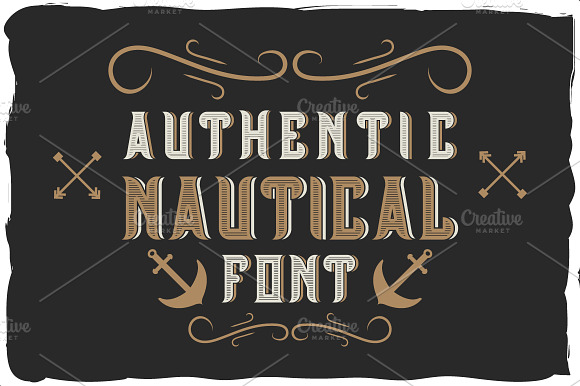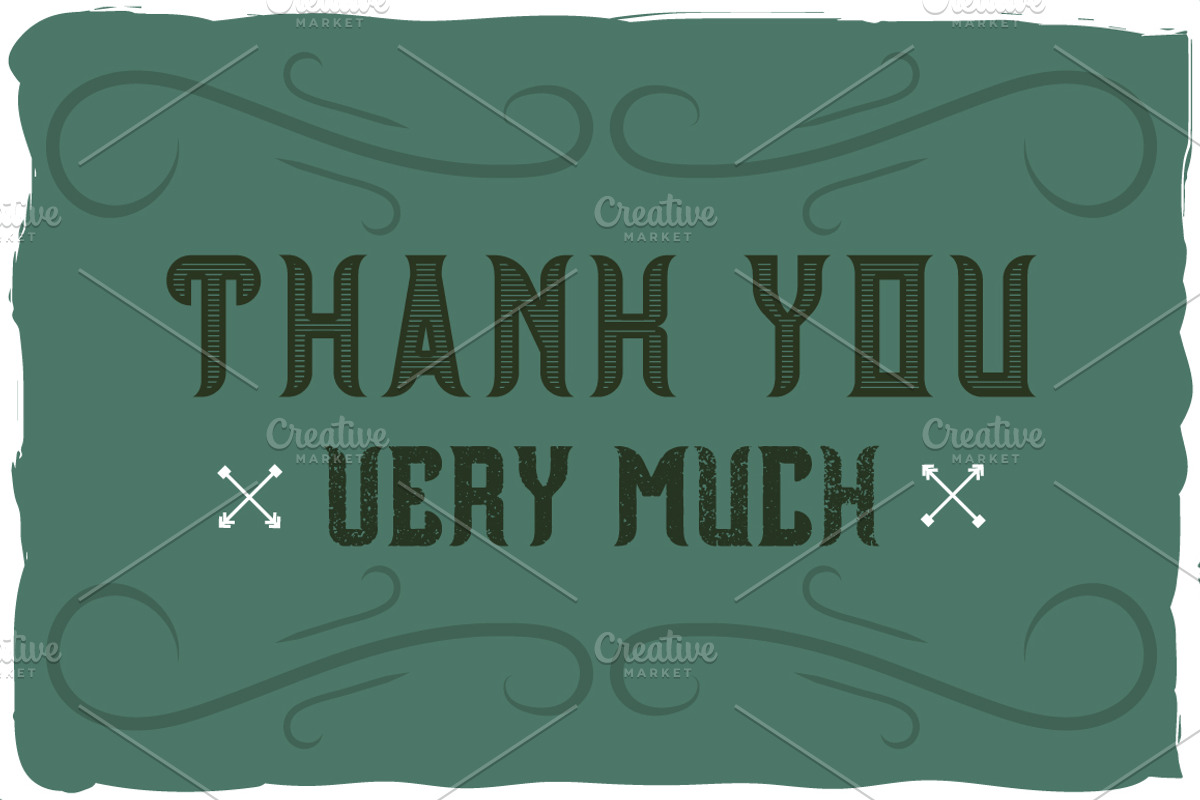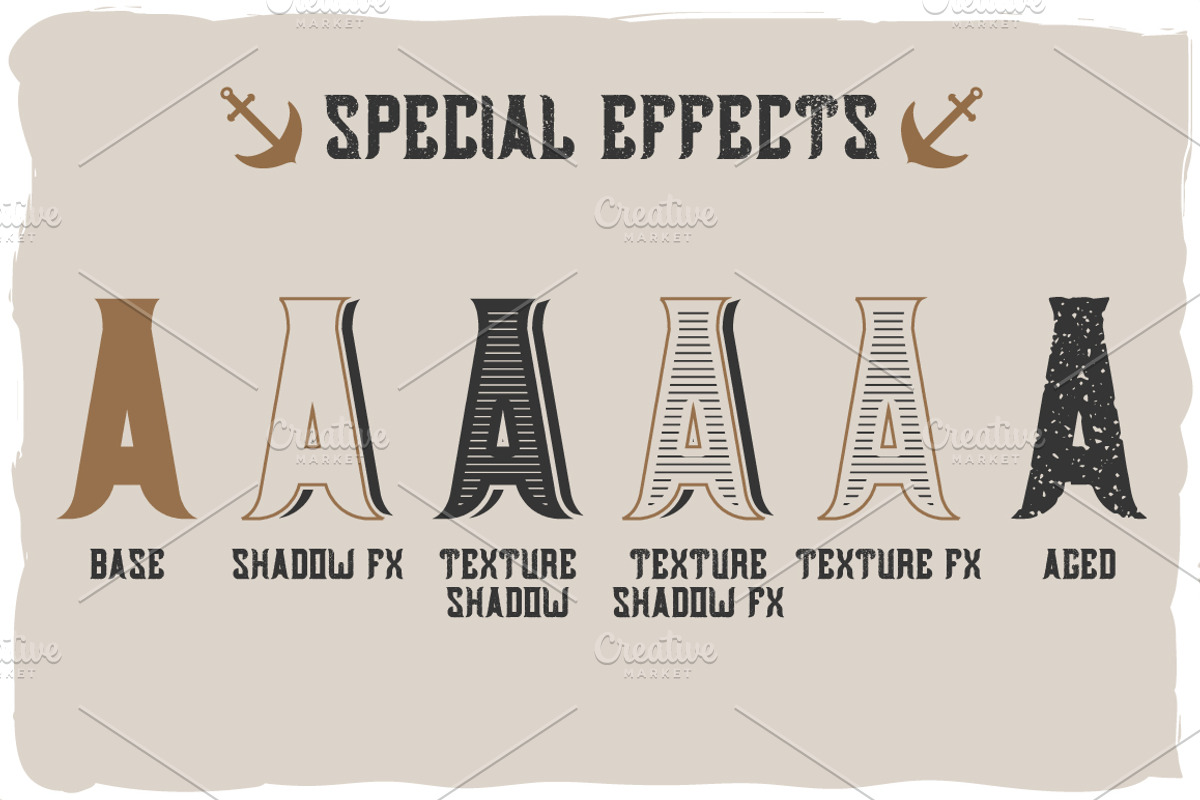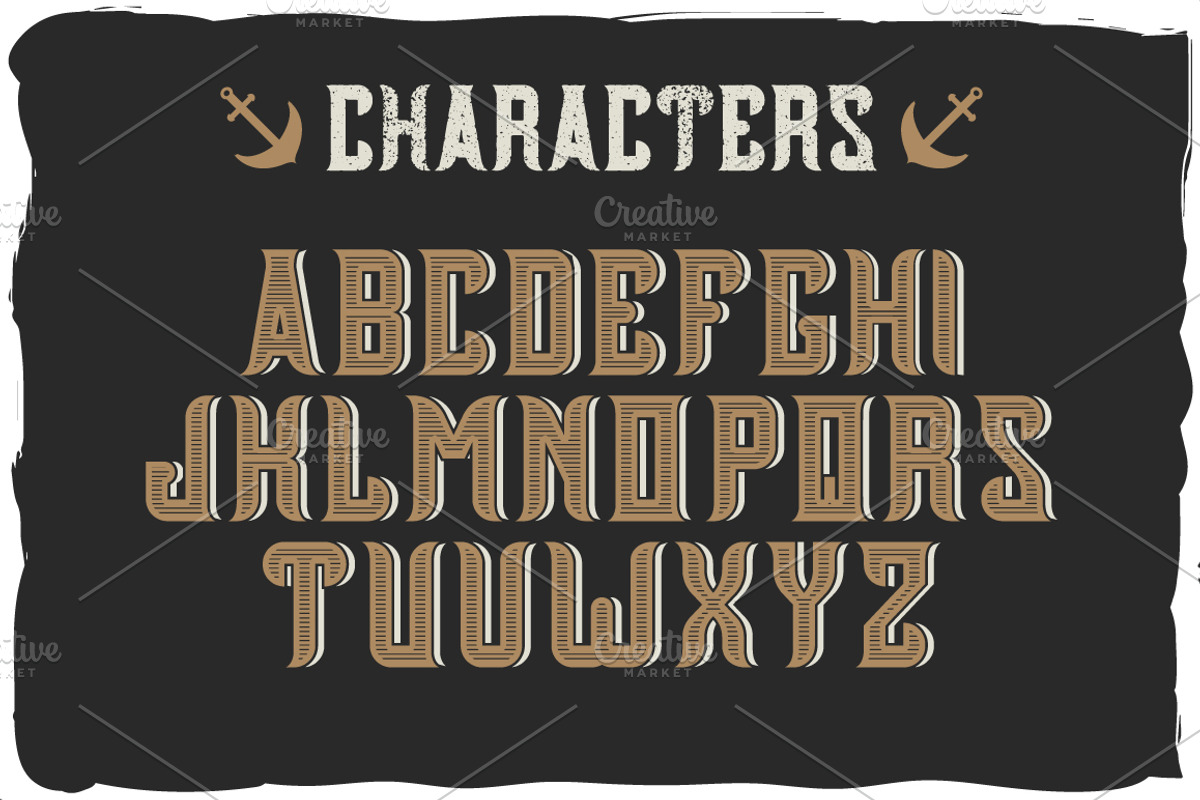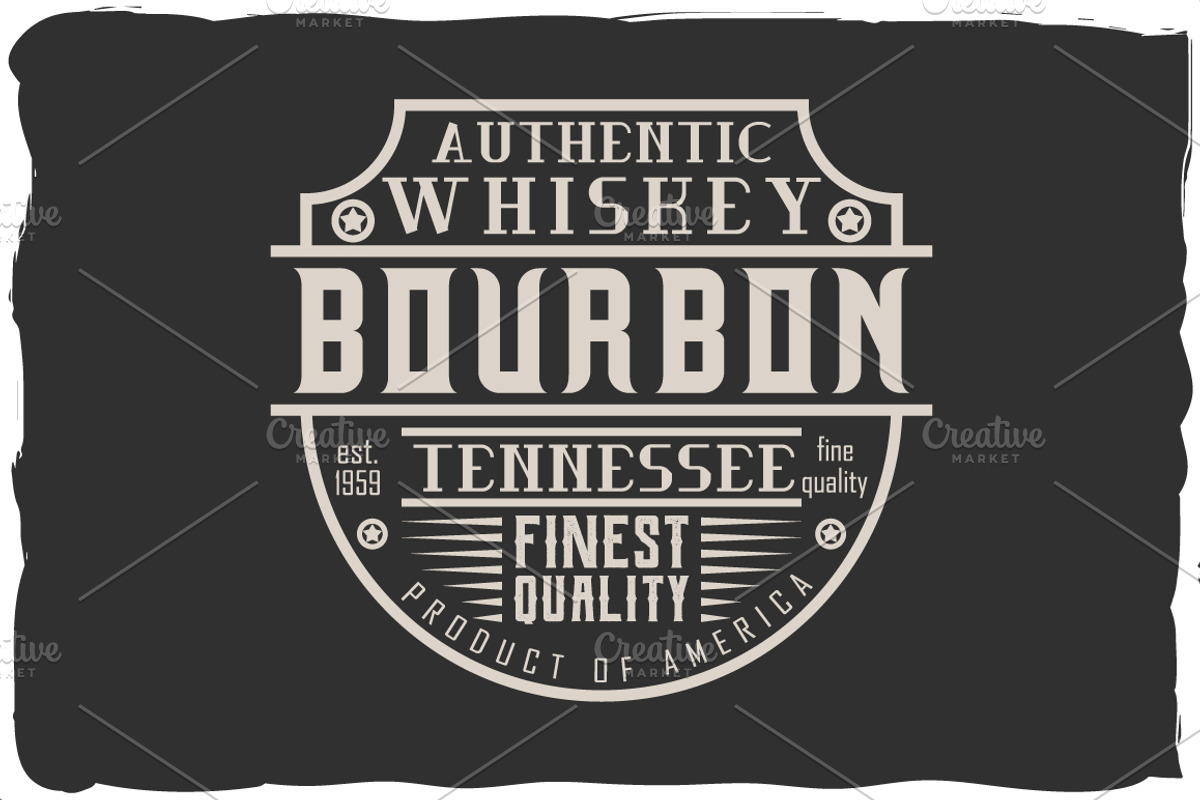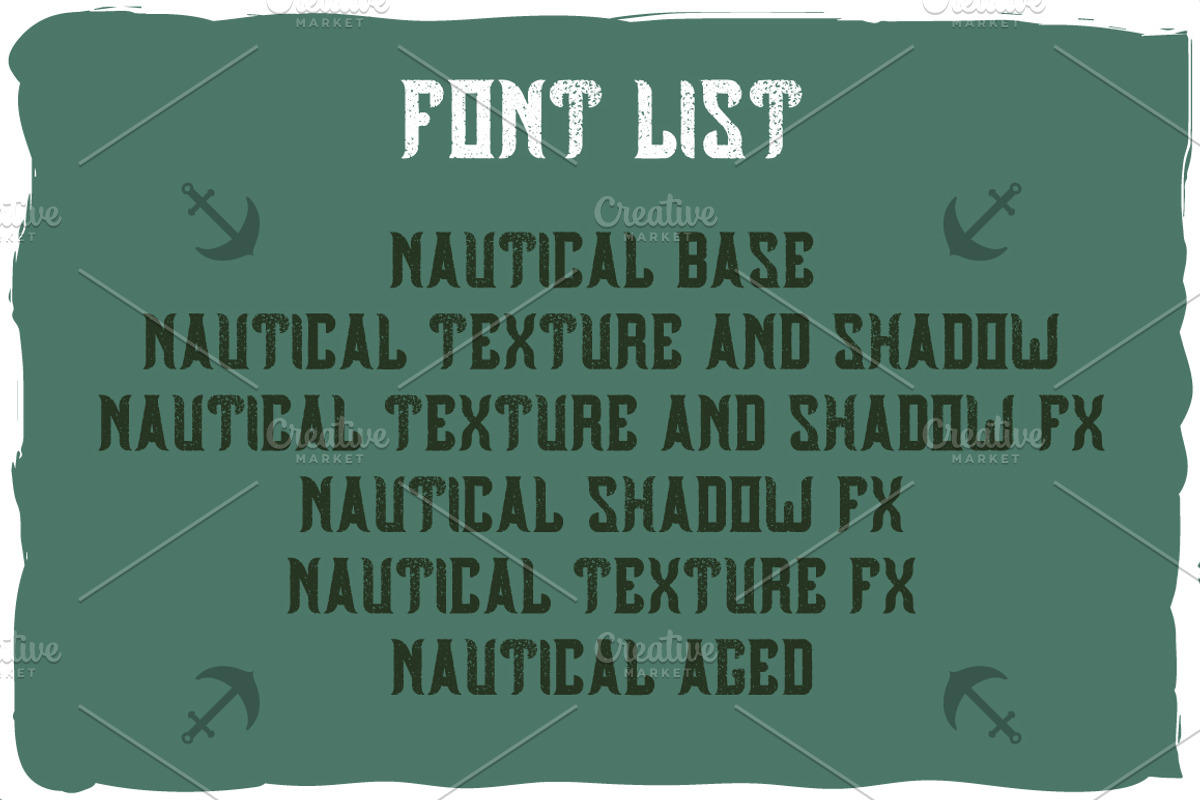
Nautical font + bonus label
Introducing a vintage label typeface called "Nautical" + bonus label. It's made in strong and vintage label style. Typeface looks great on any label designs and t-shirts.
5 fonts in complect with special effects + aged version
You can mix color of base font, texture and shadow effect (look at 3rd screenshot)
Bonus label on t-shirts and other stuff.